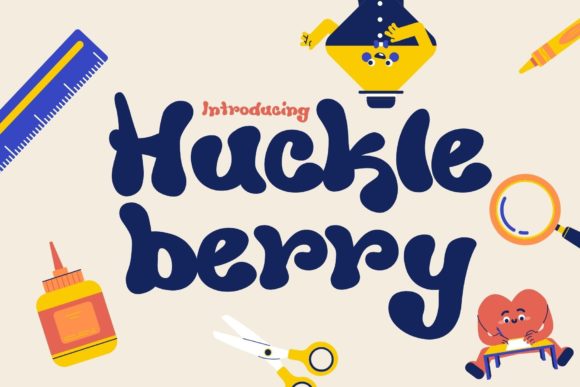
Welcome to the realm of Huckleberry Font, a captivating display font that exudes a retro charm with a dash of playfulness. Crafted by the artistic hands at HipFonts, Huckleberry is more than just a font; it is a gateway to a world where creativity thrives, and designs come to life.
Unleash your inner child and embrace nostalgia with Huckleberry's enchanting retro style. This font will transport you back to the days of soda fountains, drive-in movies, and the thrill of summer adventures. Its playful demeanor will inject a sense of whimsy and lightheartedness into your projects, creating designs that resonate with a cheerful and nostalgic vibe.
Beyond its aesthetic appeal, Huckleberry is a font of remarkable functionality. Encoded with PUA, it grants you effortless access to a treasure trove of glyphs and swashes, allowing you to explore a vast array of design possibilities. Unleash your creativity and let Huckleberry guide you on an artistic journey, where every project becomes a masterpiece.
Picture this: you're a student embarking on a school project, yearning to make a lasting impression. Huckleberry Font comes to your rescue, transforming your ordinary assignments into eye-catching visual feasts. Its playful retro style will captivate your audience, ensuring that your projects stand out from the crowd. Let Huckleberry be your secret weapon, propelling you towards academic excellence and leaving an unforgettable mark on your teachers and peers.
Huckleberry Font is not just a font; it's an experience. It's a journey into the past, a celebration of the present, and a passport to a future filled with creative possibilities. Embrace the allure of Huckleberry today and unlock the true potential of your designs.